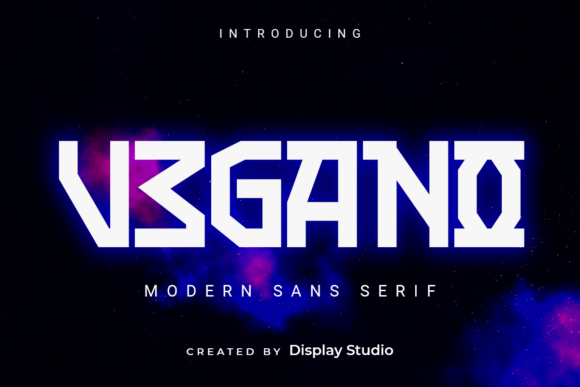
Feast your eyes on Vegano Font, the display font that will captivate you with its bold, geometric style. Unleash your creativity and design posters, flyers, or prints that leave a lasting impression. Immerse yourself in the endless possibilities that Vegano Font offers and let your imagination soar.
With its stunning appearance, Vegano Font is the ultimate choice for logo design. It commands attention and exudes a sense of strength and modernity, making it perfect for businesses looking to make a statement.
Step into the world of design with Vegano Font and experience the joy of creating something remarkable. Elevate your projects with this font and let your designs speak volumes. Whether you're a seasoned designer or just starting out, Vegano Font is your gateway to exceptional design.